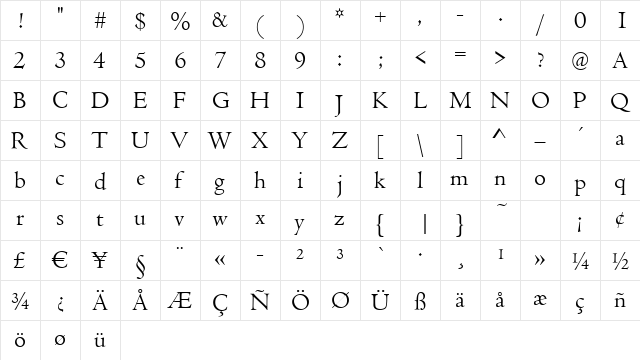
Cambridge Regular
Design Context for Cambridge Typeface
Cambridge offers clean, dependable letterforms without strong stylistic allegiance, making it a practical choice for designers who need flexibility.
Pro Tip: Use Cambridge in both headline and body roles to test its range before committing to a single application.